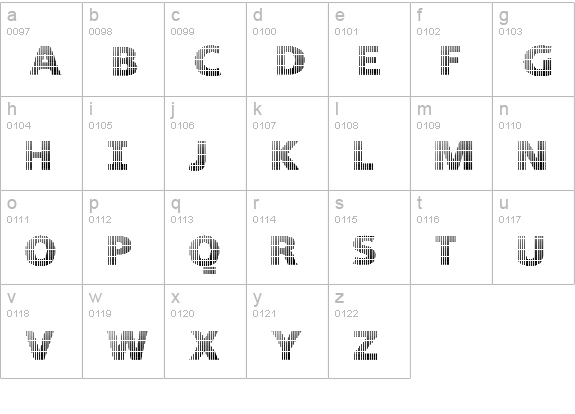
BlackWhiteGridsB Font Details
BlackWhiteGridsB font is a stylish and modern typeface that combines classic elegance with a contemporary twist. Its sleek lines and geometric shapes make it perfect for a wide range of design projects. The font features a unique grid pattern that adds a touch of sophistication to any text. Whether you're designing a logo, poster, or website, BlackWhiteGridsB font will make your text stand out. Best of all, BlackWhiteGridsB font is available for free download at FontsMarket.com. This means you can easily access this versatile font and use it in your projects without any cost. Don't miss out on the opportunity to enhance your designs with this eye-catching and versatile typeface. Download BlackWhiteGridsB font today and take your designs to the next level!